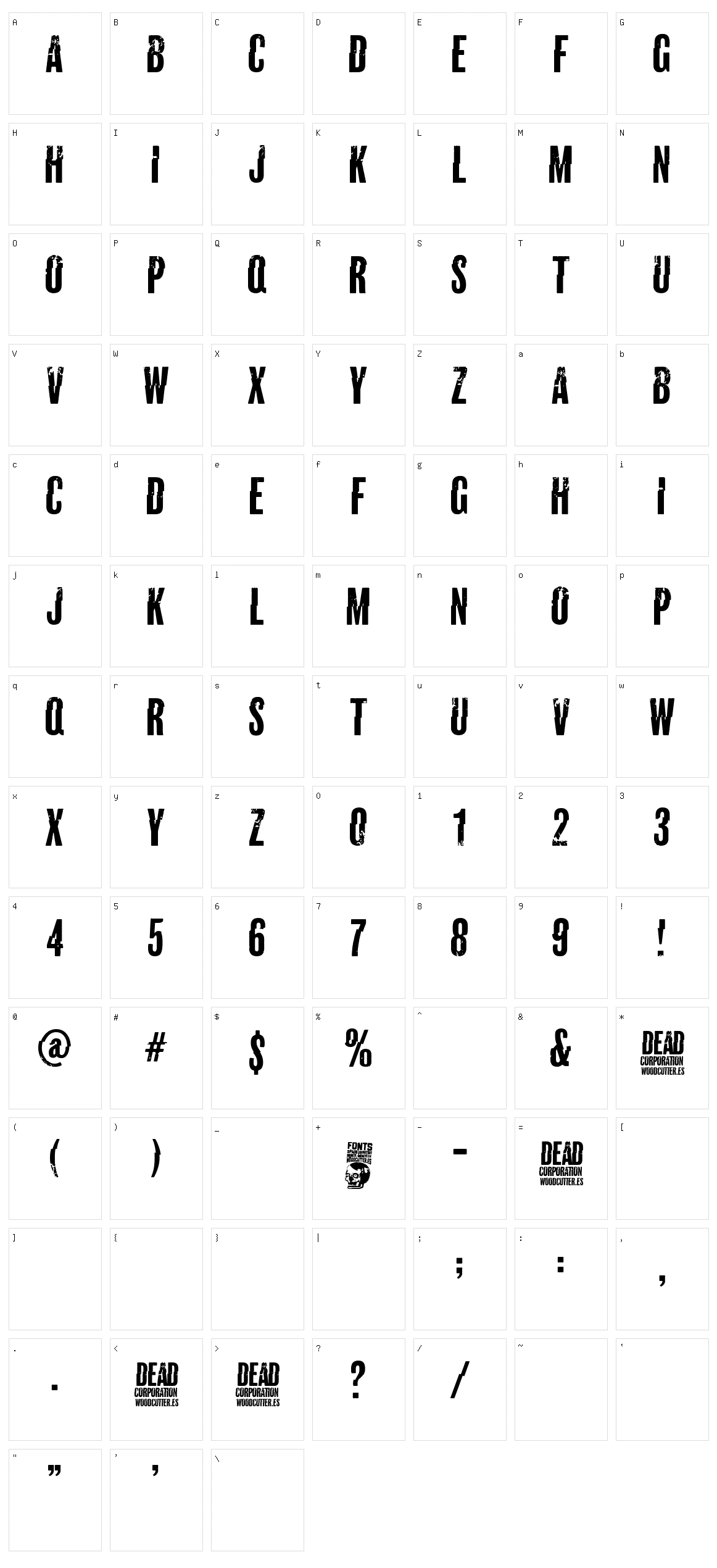
The free font Dead Corporation is carefully designed by Woodcutter, showcasing a thoughtful balance of creativity and usability and falls under the Distorted font style. When you download the ZIP file, it contains only 63.07 KB of font files, making it lightweight and quick to download. Please review the license details below to understand permitted usage and distribution rights. If license information is not available, we recommend using this font for personal projects only or contacting the author directly for commercial usage permissions.